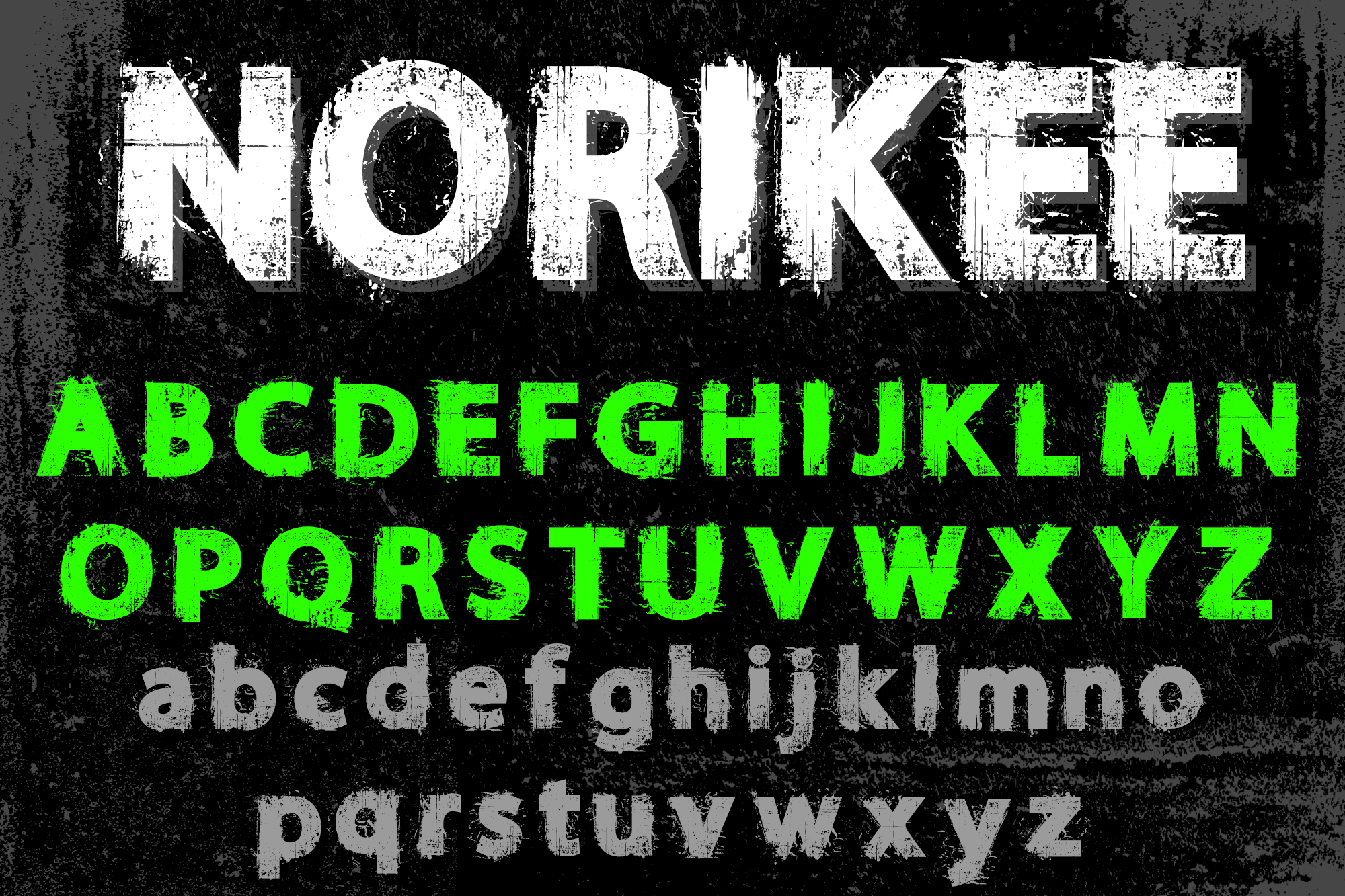
Introducing - NORIKEE - Full Distressed style font.. Made it easily to create your new Tshirt design, Cds, magazine etc. Just download, install and type it.. Boom! Hope you dig it. Demo Version, Please check http://www.knackpack.studio for the Full and License Version. Donations are very much appreciated. ENJOY |